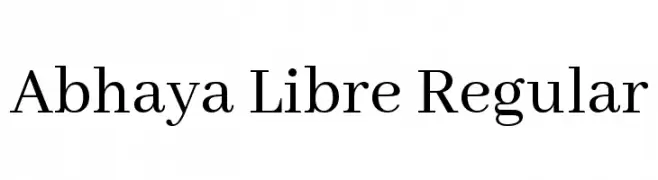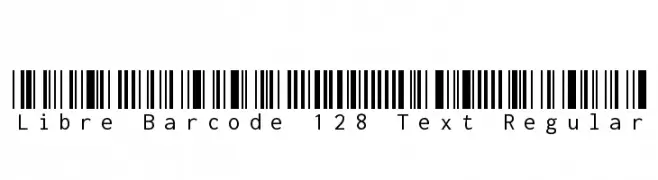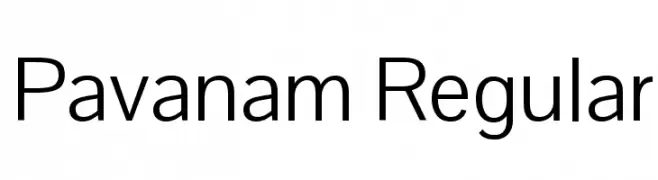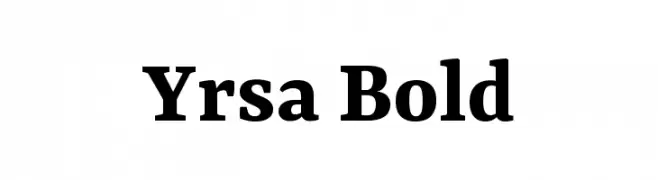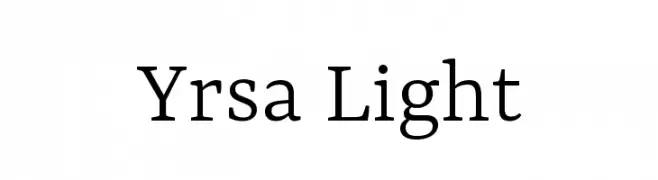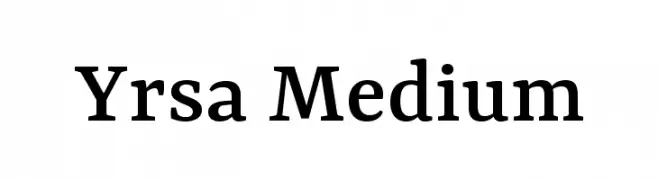
A classic serif font with a modern touch, offering elegance and versatility.
A modern serif font with medium weight and balanced proportions, ideal for versatile applications.
A modern serif font with elegant proportions and clear readability.
A clean and elegant serif font with a light weight and balanced proportions.
A semi-bold serif font with moderate contrast and a classic yet modern appeal.
A bold serif typeface with strong strokes and classic elements.
A barcode-inspired font with high contrast and tight spacing, ideal for modern and technical designs.
A clean and modern sans-serif font with balanced spacing and consistent stroke width.
A playful, rounded font with a bold and friendly appearance.
A bold, rounded font with a playful and friendly style.